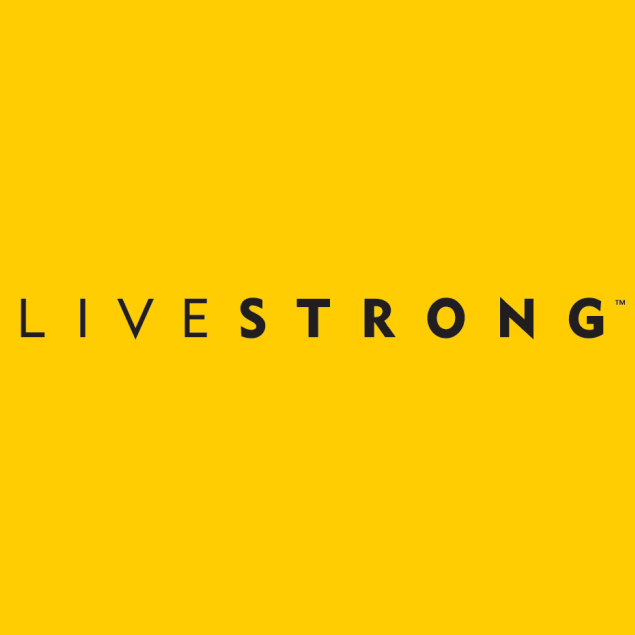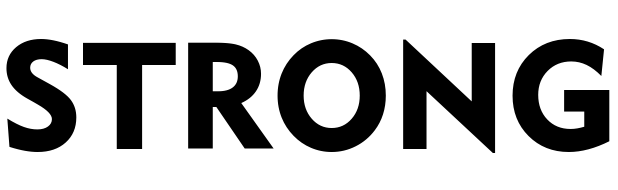
Livestrong Logo Font
Fonts in UseThe Livestrong Foundation is a nonprofit organization dedicated to improving the lives of cancer patients and survivors. It was founded by cyclist and cancer survivor Lance Armstrong in 1997.
The nonprofit organization's logo features the Geometric 415 font, using Geometric 415 Lite for "LIVE" and Geometric 415 Black for "STRONG." This clean sans-serif typeface was created by William Addison Dwiggins.